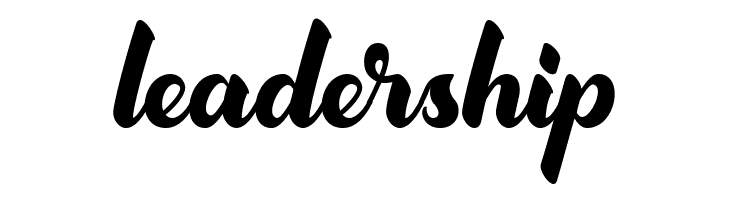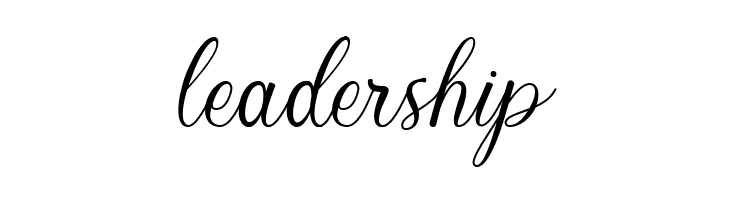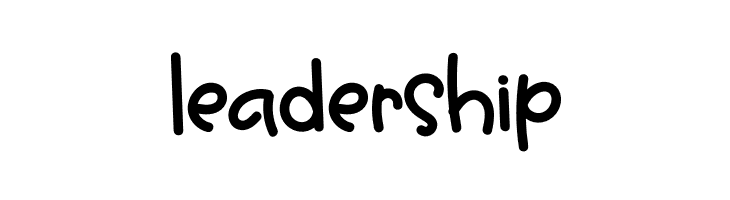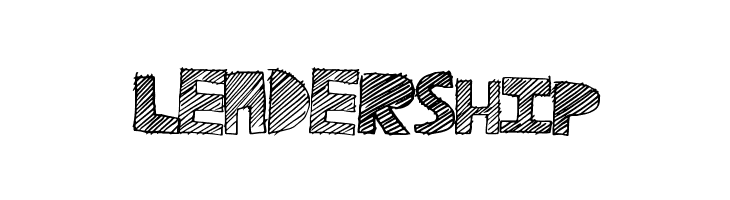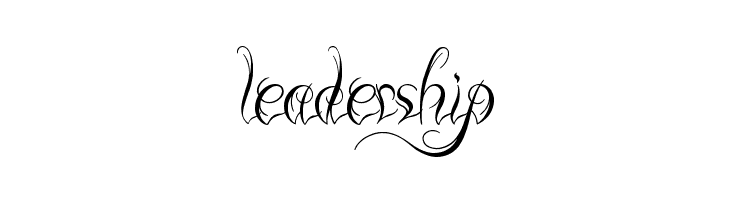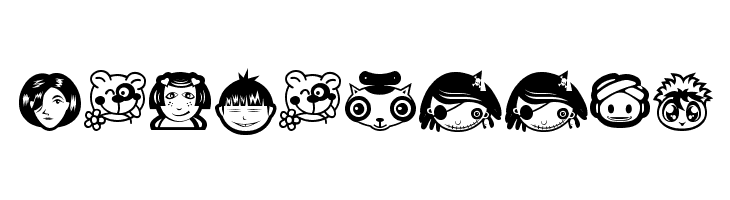
A bold, distressed font with a gritty, urban style.
A playful handwritten font with flowing, irregular letterforms and a modern aesthetic.
A bold, cursive font with elegant loops and a calligraphic style.
A cursive, calligraphic font with elegant loops and swirls.
A bold, playful handwritten font with dynamic strokes and a modern feel.
An artistic script font with flowing, connected letterforms and a rhythmic, elegant style.
A bold, italic script font with a modern and decorative style.
A sleek, modern font with thin, elongated characters and a slightly italicized style.
A modern slab serif font with bold serifs and clean lines.
A clean, modern font with consistent stroke width and elegant design.
A light, elegant italic font with refined proportions and smooth flow.
A modern, geometric font with thin, uniform lines and a minimalist aesthetic.
A sleek, modern italic font with thin, elongated letterforms and a geometric style.
A modern, thin, and elegant font with consistent stroke width and minimalistic design.
A sleek, ultra-thin italic font with a modern, geometric design.
A bold, energetic handwritten font with dynamic curves and a playful style.
A geometric, hollow font with a modern and futuristic style.
A geometric, hollow, and italic display font with a futuristic style.
A bold, angular, and geometric font with a dynamic slant.
An elegant and intricate traditional Arabic script ideal for religious texts.
A bold, playful handwritten font with rounded, irregular letterforms.
A lively, expressive script font with a handwritten feel and elegant curves.
A modern, cursive script font with smooth, connected strokes and elegant curves.
A sleek, modern geometric font with consistent line weight and minimalist design.
An elegant, cursive font with a sophisticated, handwritten style.
A playful, hand-drawn font with rounded, bold characters.
A playful, handwritten script font with smooth curves and a lively style.
A modern, elegant handwritten font with fluid, cursive strokes.
A slanted, elegant script font with interconnected letters and a handwritten feel.
A bold, geometric font with a strong, industrial style.
Cartoon face icons as font glyphs for decorative use.
Cartoon face icon font with whimsical, illustrated characters.